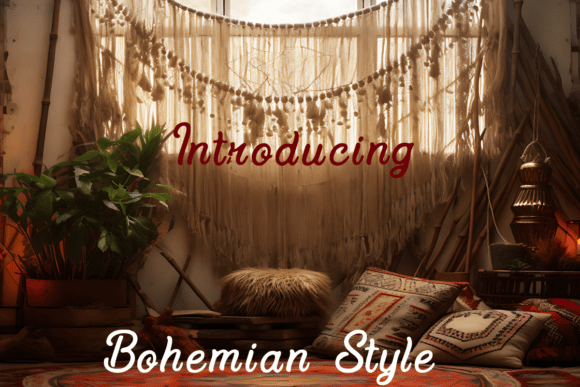
Introduction to Bohemian Style Font
Immerse yourself in the artistic beauty of Bohemian Style Script, a font that transcends boundaries with its creative flair.
Its versatile design effortlessly complements an array of applicationsโ be it imparting a chic charm to t-shirts, endowing stickers with a touch of whimsy, or augmenting branding initiatives with a distinctive edge As a headline font in magazines, it is sure to grab attention, while its application in greeting cards adds a personal, handcrafted feel.
Key Features of Bohemian Style Font
Why Choose Bohemian Style Font?
Bohemian Style Font offers exceptional quality and versatility, making it a valuable addition to your design toolkit. Whether you’re creating for personal projects or commercial use, Bohemian Style Font delivers professional results.